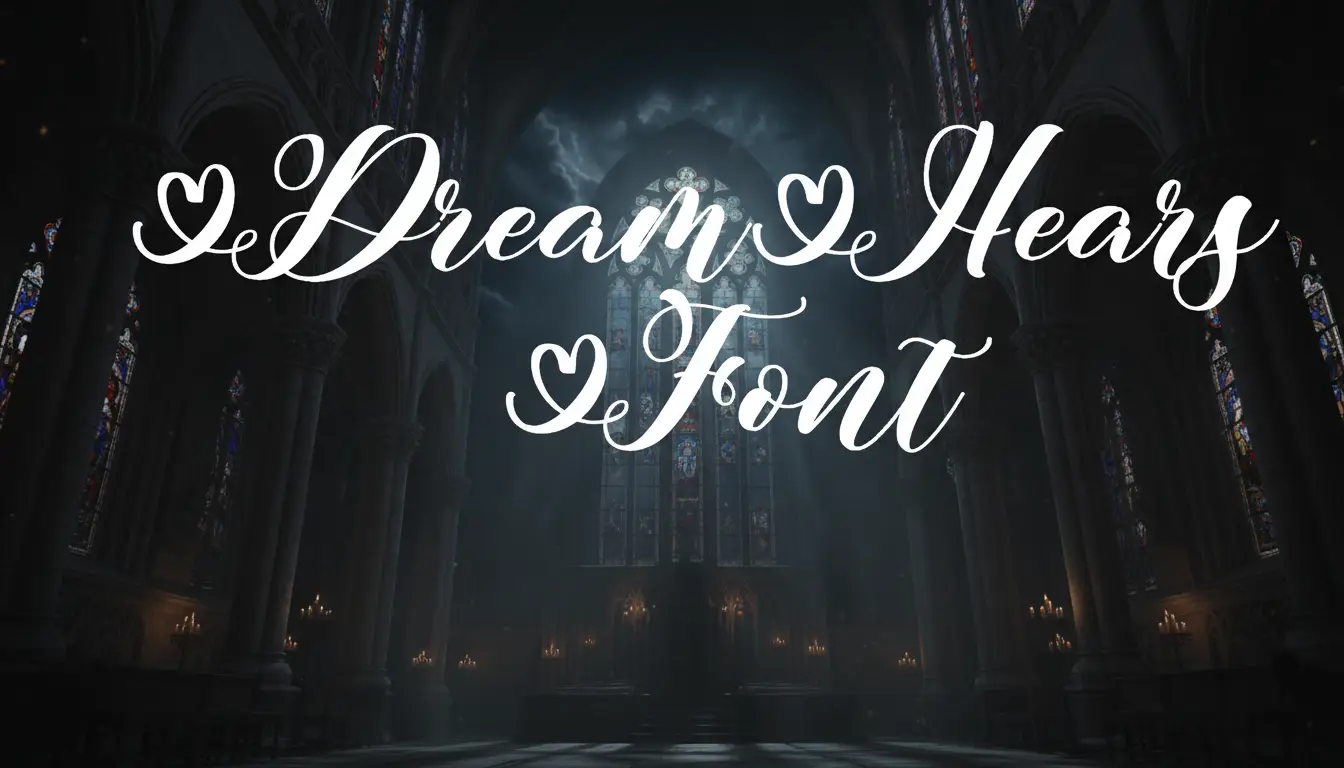
DreamHearts Font
- Category: Holiday font
- Glyphs: 263
What You Can Type With DreamHearts
DreamHearts covers the full alphabet in upper and lowercase, plus all ten numbers, so you can set names, dates and prices without switching fonts. Everyday marks like &, !, ? and @ are there too. Thanks to its accented letters, it also works for Spanish, French, Portuguese and Italian, not just English.
Where DreamHearts Works Best
DreamHearts is a natural fit for seasonal cards, sale banners and party invites. Keep the wording short, like a greeting or a sale headline, and let the font set the mood.
Does DreamHearts support accented letters?
Yes. DreamHearts includes the accented letters needed for Spanish, French, Portuguese and Italian, so it works for more than just English.
What fonts pair well with DreamHearts?
A simple serif or sans serif works well for the smaller details.